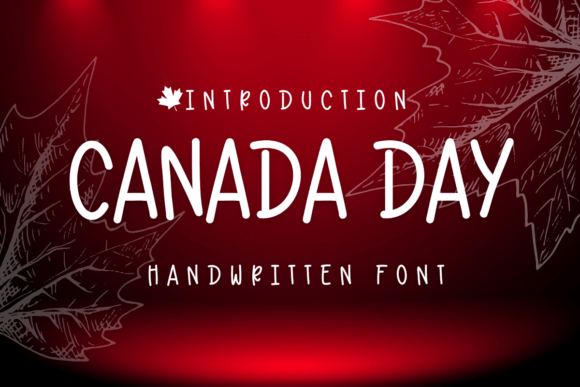
Discover the Perfect Handwritten Touch for Your Next Design Project
Who hasn’t had one of those magical moments when a blank page and a pen become the perfect combination for unleashing creativity? As you sit down to jot down ideas, create a to-do list, or write a heartfelt letter, the feeling of putting pen to paper can be incredibly therapeutic. But what if you could take that same sense of creativity and apply it to your digital designs?
Introducing the Canada Day Font, a beautiful handwritten font that’s perfect for adding a personal touch to your projects. Whether you’re creating greeting cards, designing social media posts, or making banners, this font is an excellent choice. Its versatility makes it valuable for designers who want to add a unique, handwritten feel to their work. With the Canada Day Font, you can elevate your designs and make them stand out from the crowd.
Canada Day Font Key Features
- Font Family: Canada Day is a custom, sans-serif font designed specifically for Canada Day celebrations.
- Unique Characteristics: The font features a bold, modern design with a unique blend of clean lines and subtle flair, evoking the spirit of Canadian pride and celebration.
Review of “Canada Day Font”
Overall, I think “Canada Day Font” is a great idea, especially for projects celebrating Canadian culture or patriotic events. ✨ The font’s bold and colorful design immediately grabs attention and conveys a sense of celebration.
The font’s main strength lies in its versatility. ✨ It can be used in a variety of contexts, from posters to social media graphics, and even merchandise. The font’s boldness also makes it perfect for headlines and titles.
- Unique and festive design
- Perfect for Canadian-themed projects
- Versatile and suitable for various contexts
However, I do have a few concerns about the font. ⚠️ Firstly, the design may be too loud and overpowering for some projects, especially those requiring a more subtle approach. Additionally, the font’s boldness may not be ideal for text-heavy projects, as it can be difficult to read.
- May be too loud and overpowering
- Not ideal for text-heavy projects
Overall, I think “Canada Day Font” is a great option for projects that require a bold and festive design. While it may have some limitations, it’s perfect for Canadian-themed projects and celebrations.
The Canada Day Font is perfect for:
Creating patriotic graphics and designs for Canada Day celebrations.
Adding a touch of Canadian flair to your branding and marketing materials.
Creating custom invitations and party decorations for Canada Day events.